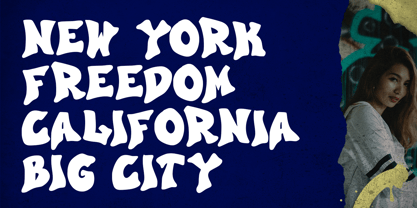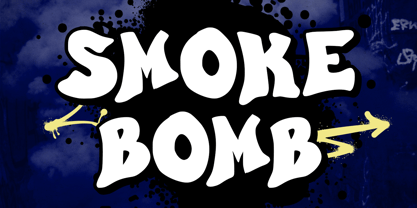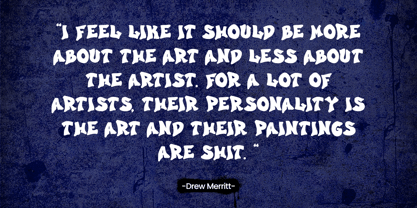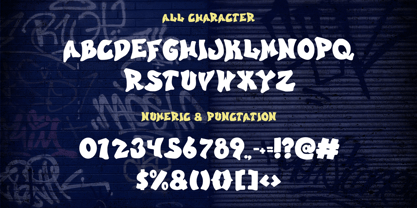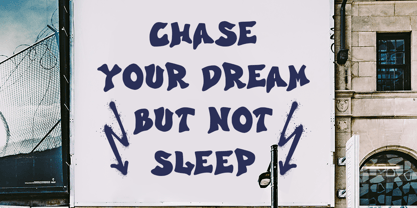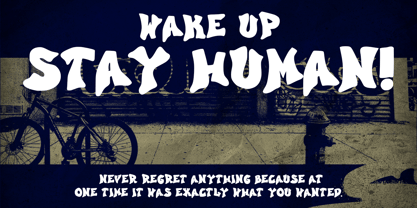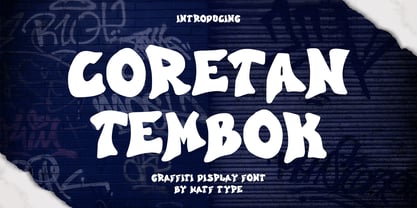
Coretan Tembok
by Hatftype
The Coretan Tembok Font Family was designed by Asep Rendi and published by Hatftype. Coretan Tembok contains 1 styles. More about this family
Inspired by the energy of the streets and the spirit of rebellion, Coretan Tembok is a graffiti display font full of character. With rough, wild, and expressive strokes, this font brings an authentic street art feel. Perfect for posters, urban designs, album covers, or any creative project that needs a touch of rebelliousness and boldness.
Let every scribble speak, be bold, and stand out because a wall is not just a wall, it’s a canvas of freedom.
Designers: Asep Rendi
Foundry: Hatftype